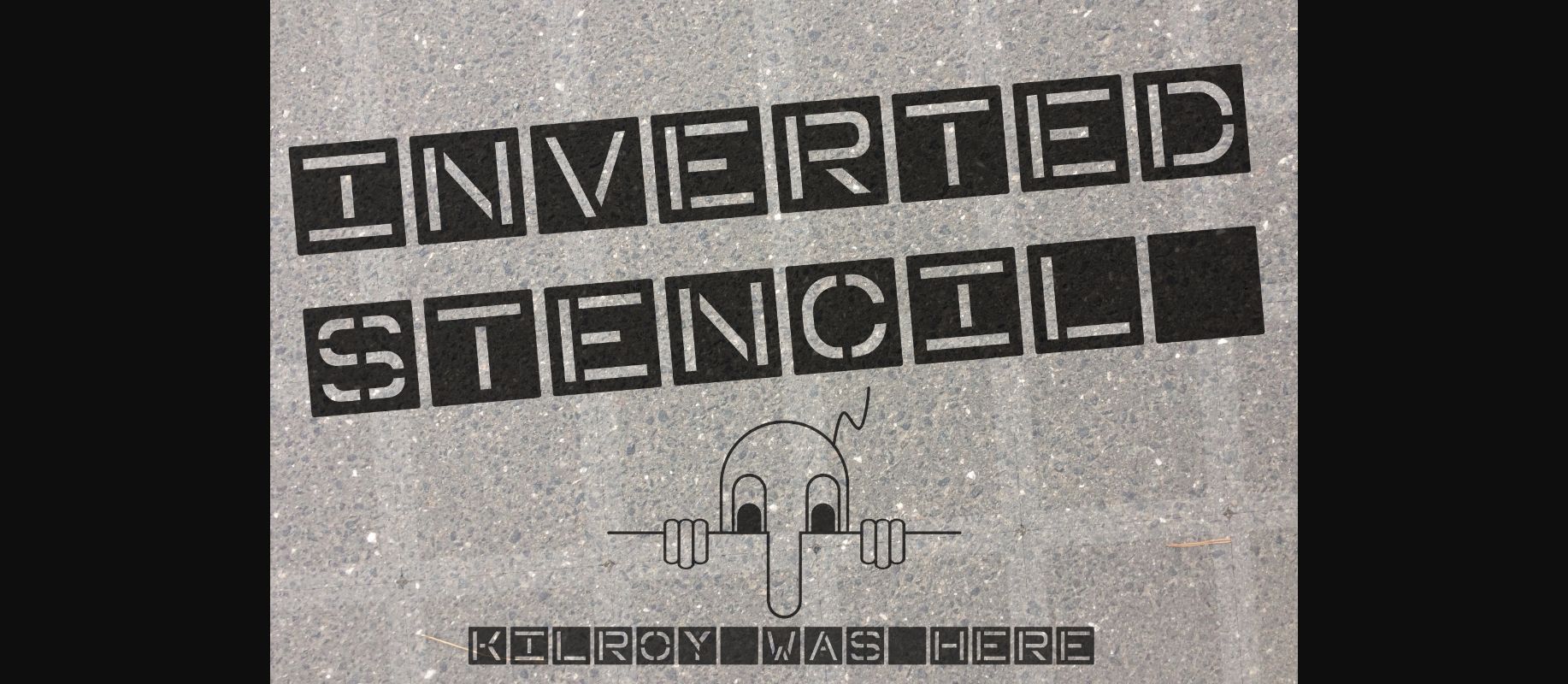
HomeDecorative FontsInverted Stencil Font Decorative Fonts Inverted Stencil Font FacebookXPinterestWhatsApp 1 of 1 About Inverted Stencil Font A decorative “Stencil” type font with square inverted characters. DOWNLOAD NOW People also explored Baynaa Font Mistletoe Font Rosalinda Font Directors Gothic 210 Trixie Limber Font Humanity Font Megan Nice Font Lattek Font Kallis Ottis Font 324 0 TagsInverted Stencil Font Previous articlePicksuhl FontNext articleFlorati Font LEAVE A REPLY Cancel reply Comment: Please enter your comment! Name:* Please enter your name here Email:* You have entered an incorrect email address! Please enter your email address here Website: Save my name, email, and website in this browser for the next time I comment. Personal Use Free Cherry Ai Personal Use Free Read more about this font Merak Personal Use Free Read more about this font Dolce Vita Personal Use Free Read more about this font Adelaide Personal Use Free Read more about this font BLOG Elegant Wedding Invitation Fonts – Handwritten & Script Fonts Elegant Wedding Invitation Fonts Your wedding day is one of the most important moments of your life, and every detail matters—including your invitation design. Our... Free vs Paid Fonts: Why Investing in Premium Fonts Is Worth It Transform Your Website: Elevate Your Typography with 7 Best Web Font Generators Best Fonts for YouTube Videos: Make Your Thumbnails Stand Out